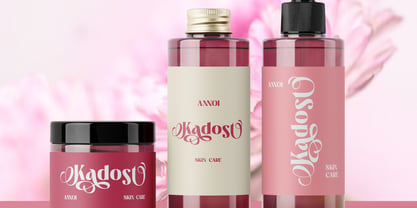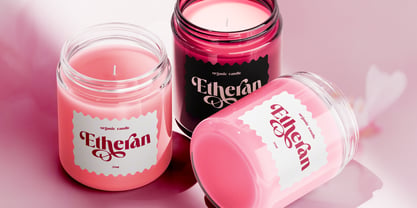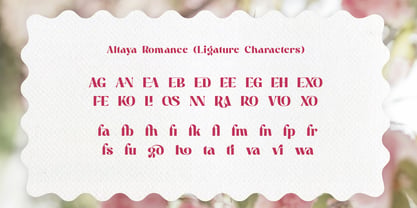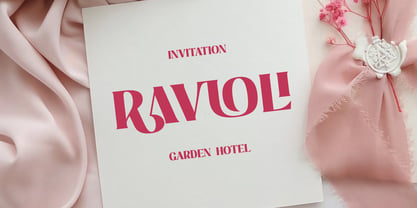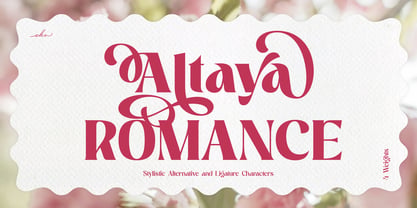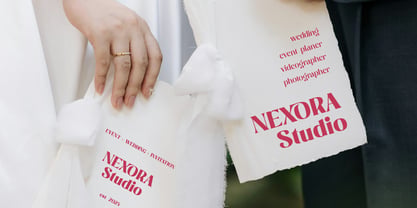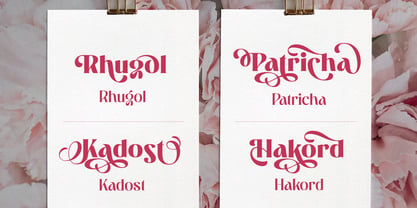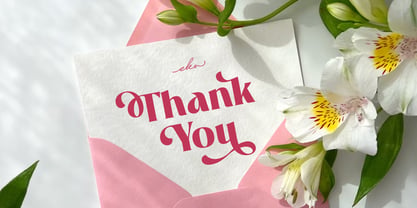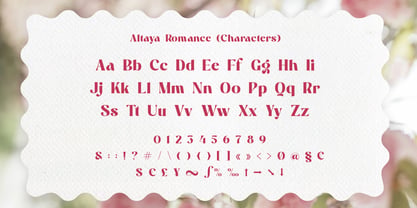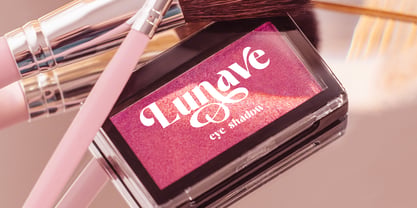
Altaya Romance
by Ekahermawan
The Altaya Romance Font Family was designed by Putu Eka Hermawan and published by Ekahermawan. Altaya Romance contains 4 styles and family package options. More about this family
Fall in love with ALTAYA ROMANCE, a graceful and charming display font that captures the beauty of classic font with a modern twist. Designed for elegance and emotion, every curve and flourish brings a sense of romance and sophistication to your work. With its stylish swashes, elegant alternates, and stunning ligatures, ALTAYA ROMANCE is perfect for wedding invitations, branding, packaging, logos, greeting cards, and editorial designs. It gives each word a touch of poetic warmth — making your typography look effortlessly luxurious and beautifully expressive. ALTAYA ROMANCE comes in four weights, complete with a wide selection of stylistic alternates and ligature characters for endless creative possibilities. It also supports multiple languages, ensuring versatility across various design needs. Let your designs bloom with ALTAYA ROMANCE — a font that speaks the language of love, beauty, and timeless elegance.
Designers: Putu Eka Hermawan
Foundry: Ekahermawan